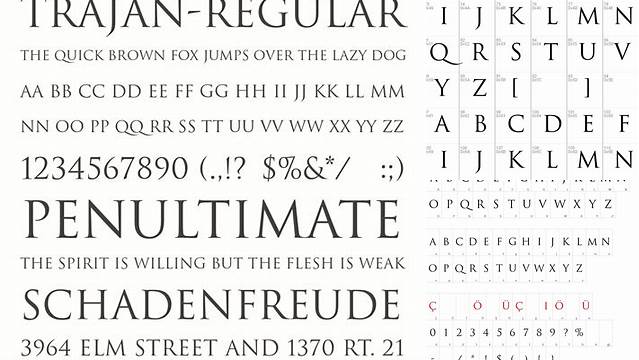
Trajan Regular Font: Free Download & Design Guide
Trajan Regular Font: Your Guide to a Timeless Classic
Hey guys, let's dive into the world of typography and talk about the Trajan Regular font free download. This font is more than just letters; it's a piece of art, a statement, and a workhorse that has graced countless designs throughout history. Whether you're a seasoned designer, a budding enthusiast, or just someone who appreciates a good-looking font, Trajan Regular is a name you should know. We're going to explore everything you need to know about this iconic typeface, from its origins to where you can snag a free download, and how to use it effectively in your projects. So, buckle up, and let's get started on this typographic journey!
Understanding the Allure of Trajan Regular
Okay, so what's the big deal about Trajan Regular? Why is it so beloved? The answer lies in its history, its elegance, and its versatility. The Trajan font is based on the inscription on Trajan's Column, a monument erected in Rome around 113 AD. These inscriptions are widely considered to be the most beautiful and well-proportioned examples of Roman capital letters ever created. The font captures that beauty and translates it into a modern typeface, making it perfect for a wide range of applications. Its clean lines, classic serifs, and balanced proportions give it a timeless quality that works well across different mediums.
One of the key reasons for its popularity is its readability. Despite its classic design, Trajan Regular is incredibly easy to read, even in smaller sizes. This makes it a great choice for body text, headings, and even longer passages. It's also incredibly versatile. You can use it for branding, headlines, invitations, posters, and even website design. It pairs well with many other fonts, so you can mix and match it to create unique and interesting visual effects. The font's strength lies in its simplicity and its inherent beauty, which allows it to stand out without being overly flashy or distracting. You'll notice it's often used in the movie industry and for creating historical or elegant themes.
What's more, Trajan Regular has been around for quite some time, which means that it's been tested and refined over the years. Many designers and typographers have analyzed it, adjusted it, and created variations to ensure its ongoing relevance and usability. This means that when you use Trajan Regular, you're not just using a font; you're tapping into a legacy of design expertise and aesthetic appreciation. In short, Trajan Regular isn't just a font; it's a design investment that gives your work a touch of sophistication and gravitas that few other typefaces can match. So, if you want to give your project a touch of classic elegance, it's hard to go wrong with the Trajan Regular font.
How to Use Trajan Regular Effectively in Your Designs
So, you've got your Trajan Regular font free download, awesome! Now, how do you actually use it to make your designs shine? The key is to understand its strengths and use it strategically. Trajan Regular works best when used for headings, titles, and short blocks of text. Its strong, elegant presence makes it perfect for grabbing attention and conveying a sense of authority and sophistication.
Here are some tips to get the most out of this classic font:
- Pairing with other fonts: Trajan Regular can be paired with a variety of other fonts. For body text, consider using a clean, easy-to-read sans-serif font, or a serif font with a different style. The contrast between a classic and a modern font can create a dynamic and interesting design. Experiment with different combinations to see what works best for your project.